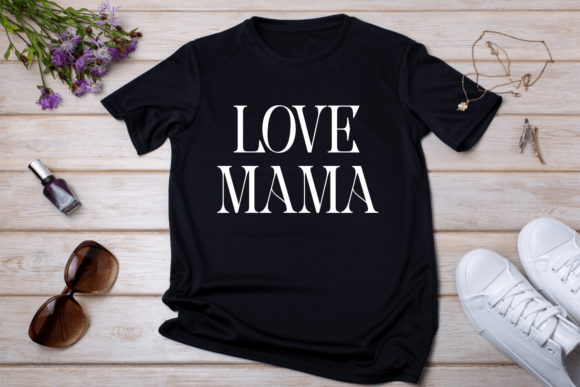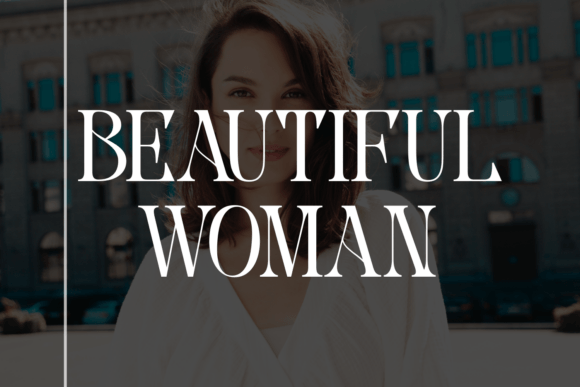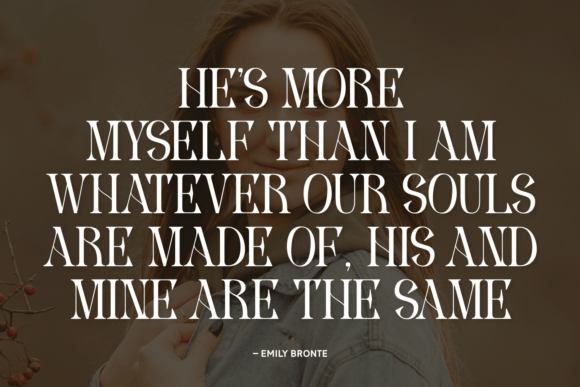
The Elusive Font: A Designer’s Quest for Elegance
I still remember the countless hours I spent searching for the perfect font for a luxury branding project. My client wanted something that exuded elegance, sophistication, and a touch of modernity. I scoured the internet, tried out numerous fonts, but nothing seemed to fit the bill. That was until I stumbled upon Frisya Font. ✨
Frisya is an elegant serif font that combines timeless sophistication with modern flair. Its sharp serifs and smooth curves create a harmonious balance, making it ideal for luxury branding, editorial design, and invitations. In this article, I’ll share my experience with Frisya, its features, and how to make the most of it in your designs.
An Honest Review of Frisya Font
What I Love About Frisya ✨
- ✅ Elegant and refined details: Frisya’s attention to detail is impressive, making it perfect for high-end designs.
- ✅ Excellent readability: The font’s clear letterforms ensure that your text is easy to read, even at small sizes.
- ✅ Versatile: Frisya works well in a variety of design contexts, from luxury branding to editorial design and invitations.
- ✅ Modern flair: The font’s sharp serifs and smooth curves give it a fresh, modern feel.
While Frisya is an excellent font, there are a few things to keep in mind:
- 🤔 Limited availability of OpenType features: Frisya has some OpenType features, but it’s not as extensive as some other fonts.
- ⚠️ May not work well with body text: Frisya is best suited for headlines, titles, and short paragraphs. It may not be the best choice for lengthy body text.
The Story Behind Frisya Font
Frisya was designed by a team of typographers who wanted to create a font that combined timeless sophistication with modern flair. Inspired by classic serif fonts, they added a touch of modernity to create a unique and elegant font. The result is Frisya, a font that’s perfect for luxury branding, editorial design, and invitations.
Q: What is Frisya Font?
A: Frisya is an elegant serif font that combines timeless sophistication with modern flair.
Q: What is Frisya best used for?
A: Frisya is best used for luxury branding, editorial design, and invitations.
Q: Can I use Frisya for body text?
A: While Frisya is a beautiful font, it’s best suited for headlines, titles, and short paragraphs. It may not be the best choice for lengthy body text.
Q: Does Frisya have OpenType features?
A: Yes, Frisya has some OpenType features, including glyphs and stylistic alternates.